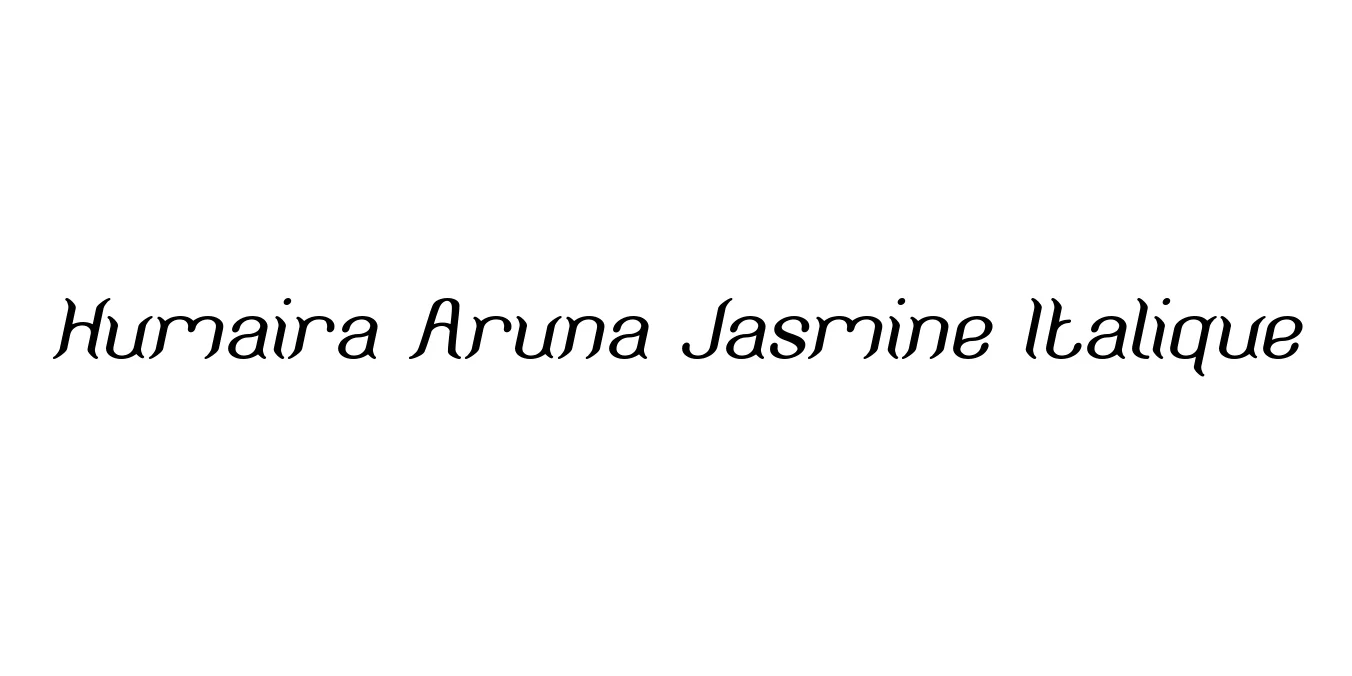
Humaira Aruna Jasmine Italique
Humaira Aruna Jasmine Italique is an exquisite example of contemporary calligraphic artistry, designed to bridge the gap between classic elegance and modern digital aesthetics. This typeface features a rhythmic flow of delicate strokes and sophisticated slants, meticulously crafted to mimic the organic movement of high-end penmanship. Its graceful curves and refined terminals make it a standout choice for projects that require a touch of luxury and personal intimacy.
The font is particularly noted for its extensive character set and unique ligatures that provide a custom-lettered feel to every word. Historically rooted in the traditions of script typography, Humaira Aruna Jasmine Italique has been optimized for high-resolution displays, ensuring that its intricate details remain sharp and legible whether used in print or across digital platforms. It remains a favorite among designers looking to convey warmth, fashion-forward thinking, and timeless beauty.
Humaira Aruna Jasmine Italique Best Uses
Perfect for high-end invitations, RSVP cards, and romantic place settings.
Ideal for creating sophisticated logos and packaging for the beauty and fashion industries.
Excellent for decorative pull-quotes and stylistic headlines in lifestyle magazines.
Great for aesthetic quotes, watermarks, and high-engagement visual storytelling.